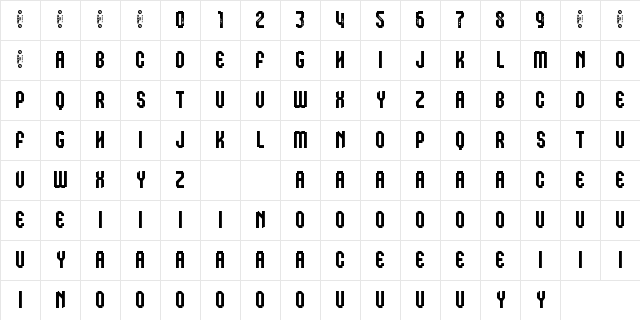
Klops Qubicle Personal Regular Free Font
Klops Qubicle Personal Regular
Foundry: Trequartista Studio
Designer: Muhammad Afif Ersya
Complete Klops Qubicle Personal Regular glyph index. Displaying only characters natively supported by Klops Qubicle Personal Regular font.
Design Context for Klops Qubicle Personal
Klops Qubicle Personal is a composed and adaptable typeface that performs quietly and consistently across a wide range of design contexts.